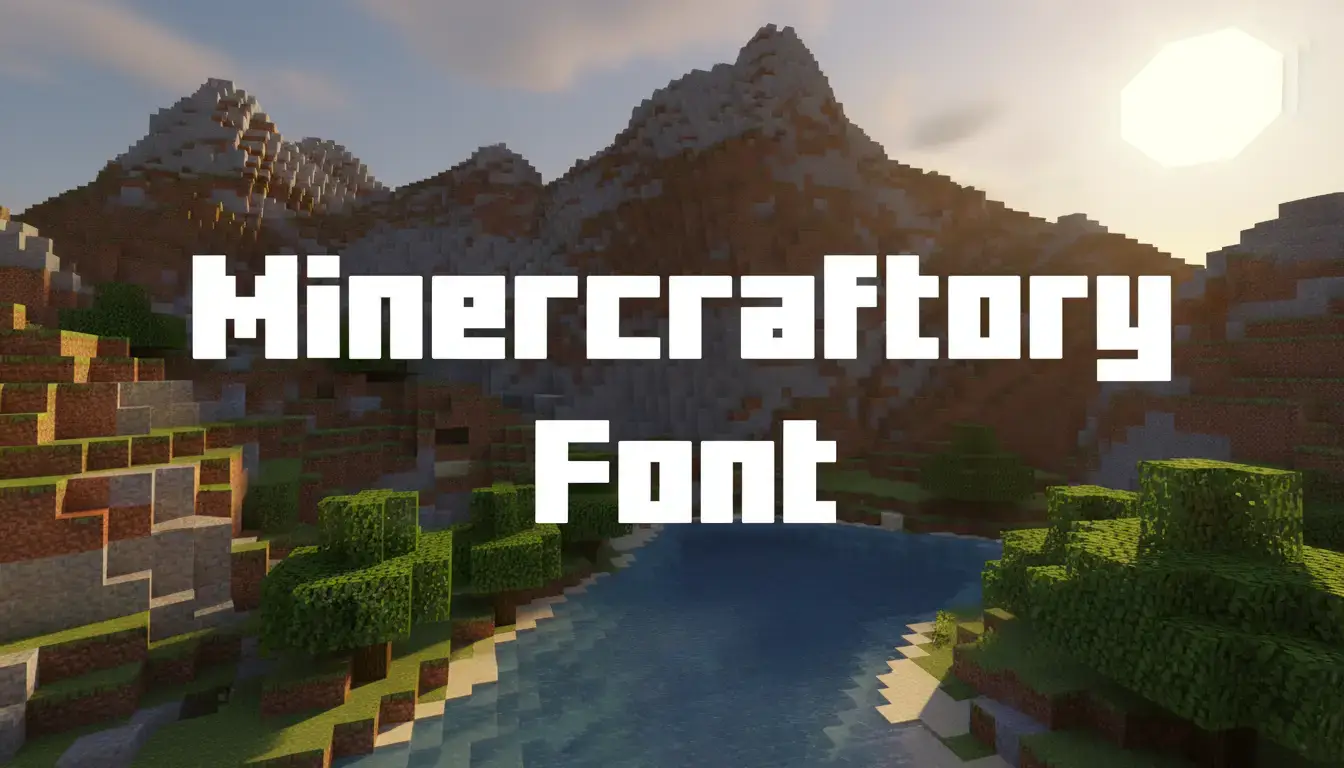
Minercraftory Font
Minercraftory is a techno font created by Jayvee D. Enaguas (GrandChaos). Its angular, engineered shapes look right at home on screens and tech products. You can download it for free and test it with your own words in the preview above.
What You Can Type With Minercraftory
You get every letter from A to Z in both cases and all the numbers from 0 to 9, which means Minercraftory can handle full sentences, dates and prices. Common punctuation such as &, !, ? and # is included as well. It also has the accented letters you need for Spanish, French, German, Portuguese and Italian.
Where Minercraftory Works Best
Minercraftory is a natural fit for gaming logos, tech branding and futuristic posters. Try it on a dark background with a bright accent color for a sharp, modern look.
Does Minercraftory support accented letters?
Yes. Minercraftory includes the accented letters needed for Spanish, French, German, Portuguese and Italian, so it works for more than just English.
What fonts pair well with Minercraftory?
A simple sans serif like Roboto keeps longer text easy to read next to it.